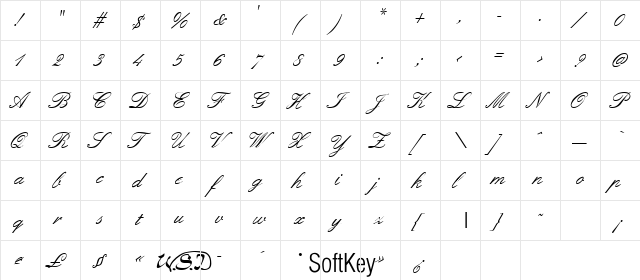
Embellish Regular
Design Context for Embellish Typeface
Embellish is a composed and adaptable typeface that performs quietly and consistently across a wide range of design contexts.